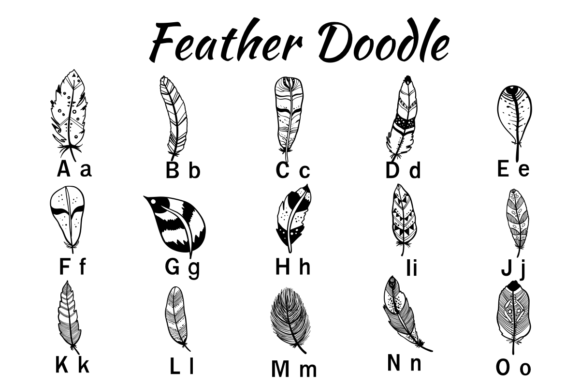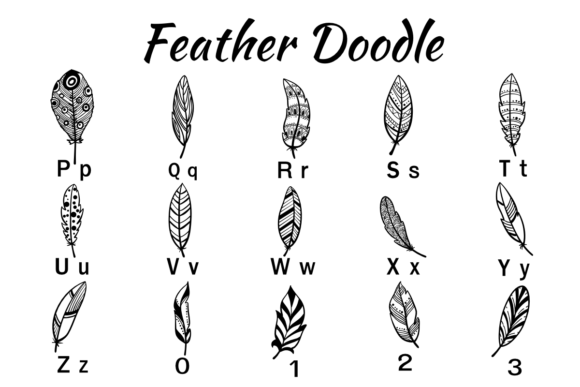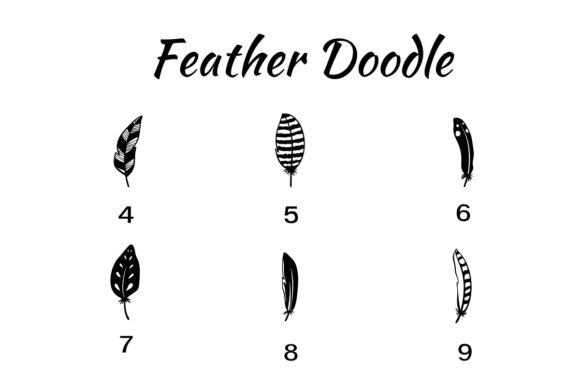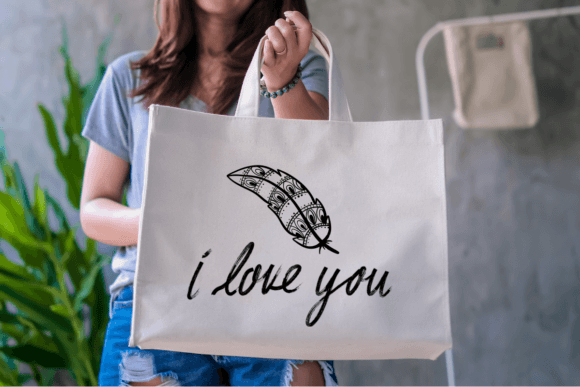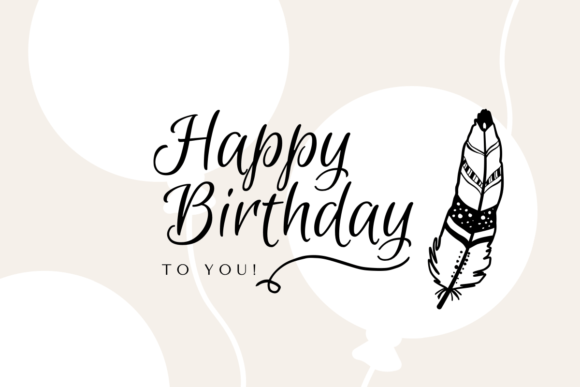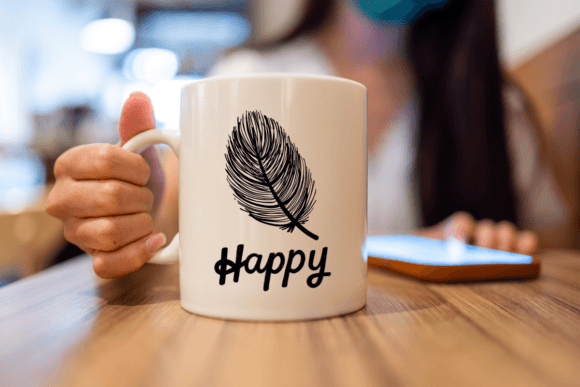
Introduction to Feather Doodle Font
Feather Doodle is a fun dingbats font.
It can enhance your creative projects such as wedding invitations, DIY, crafts, decorations, logos, and many other creative ideas .